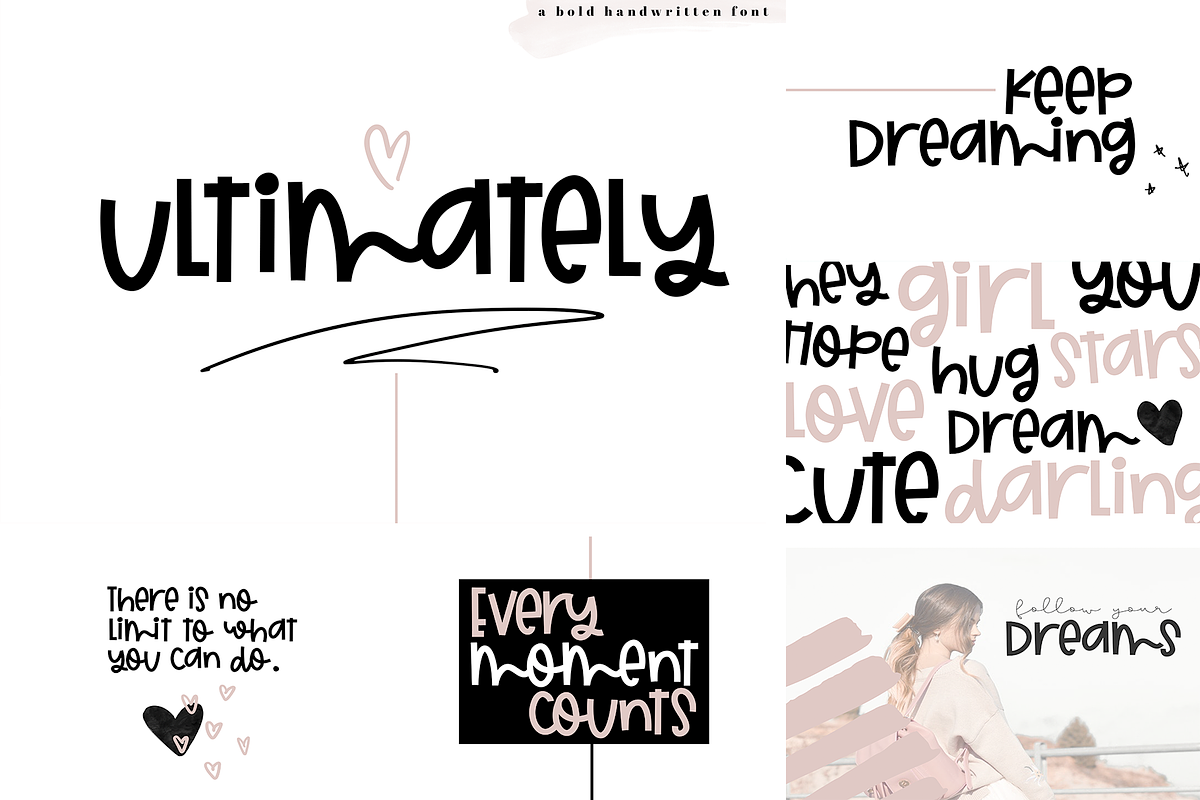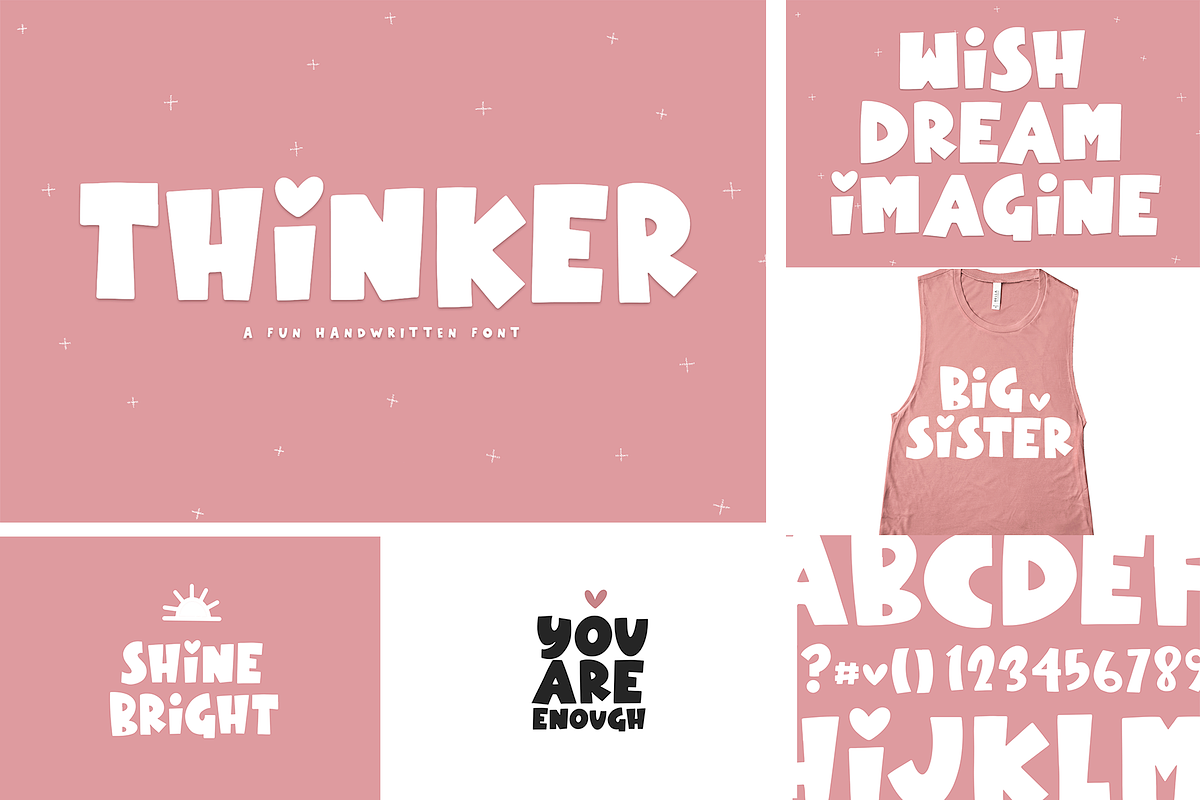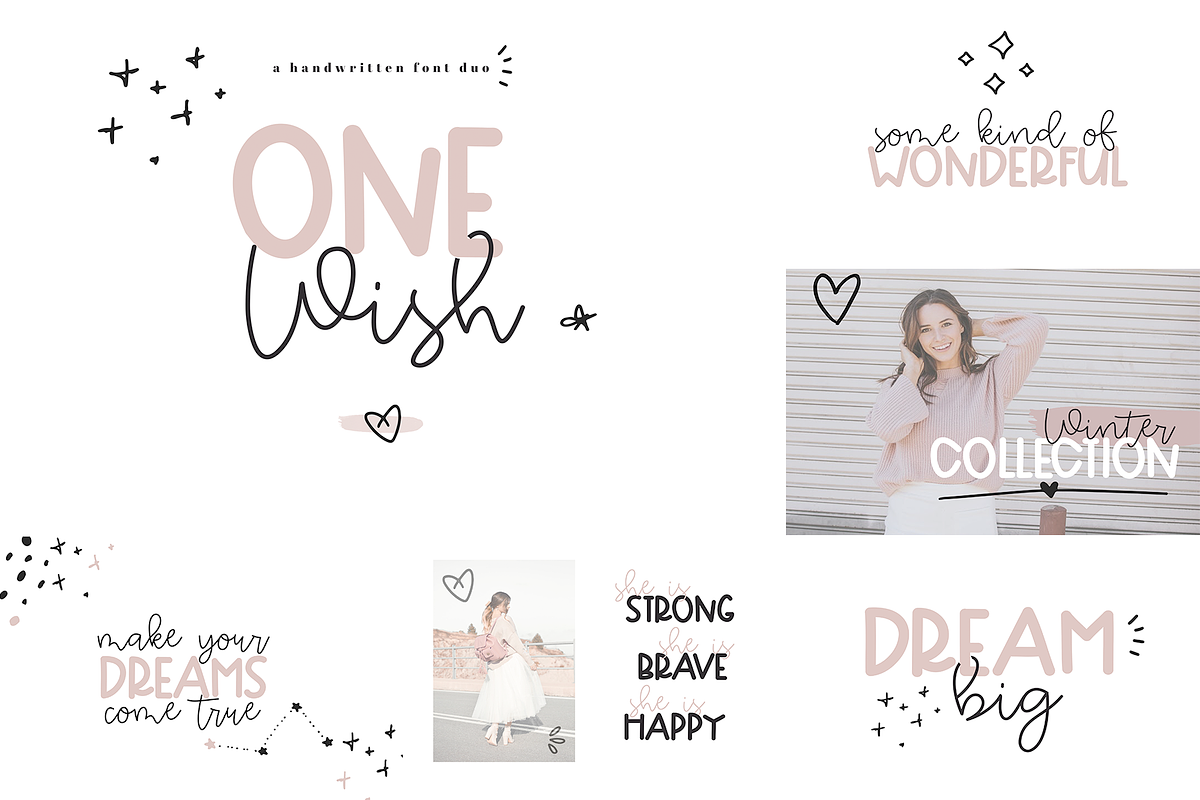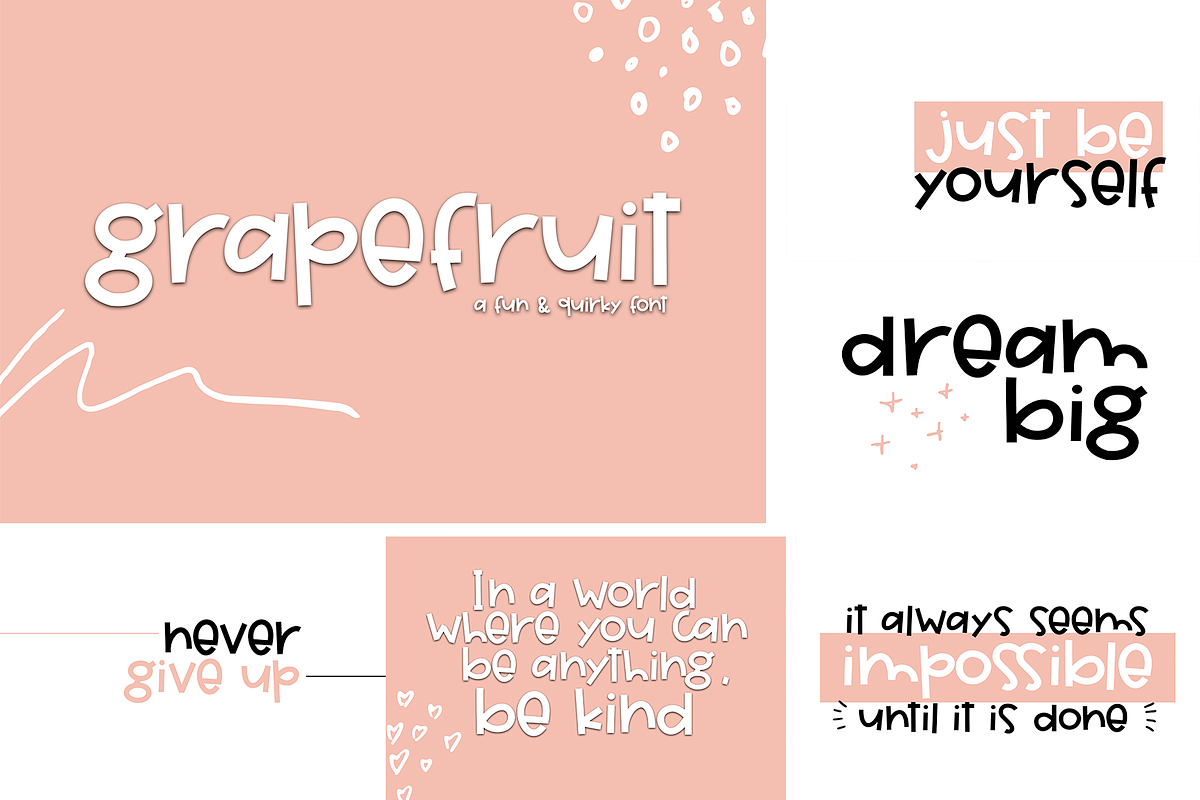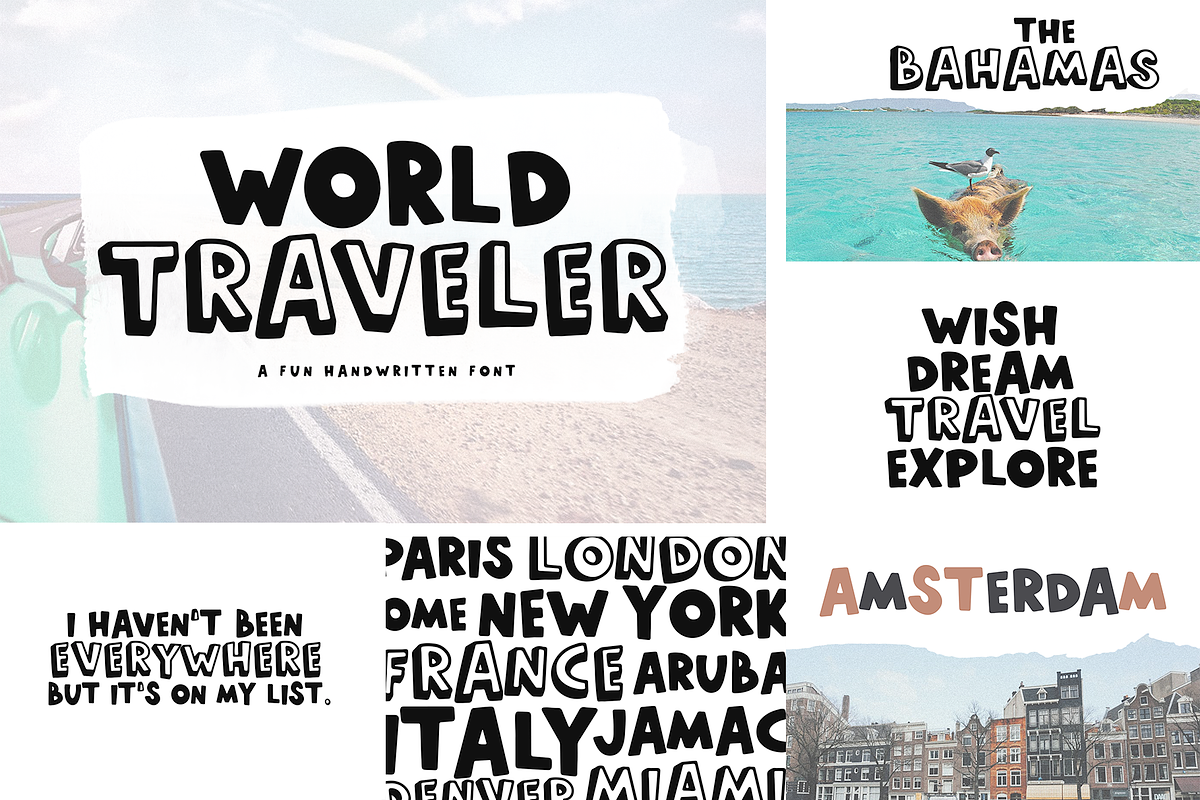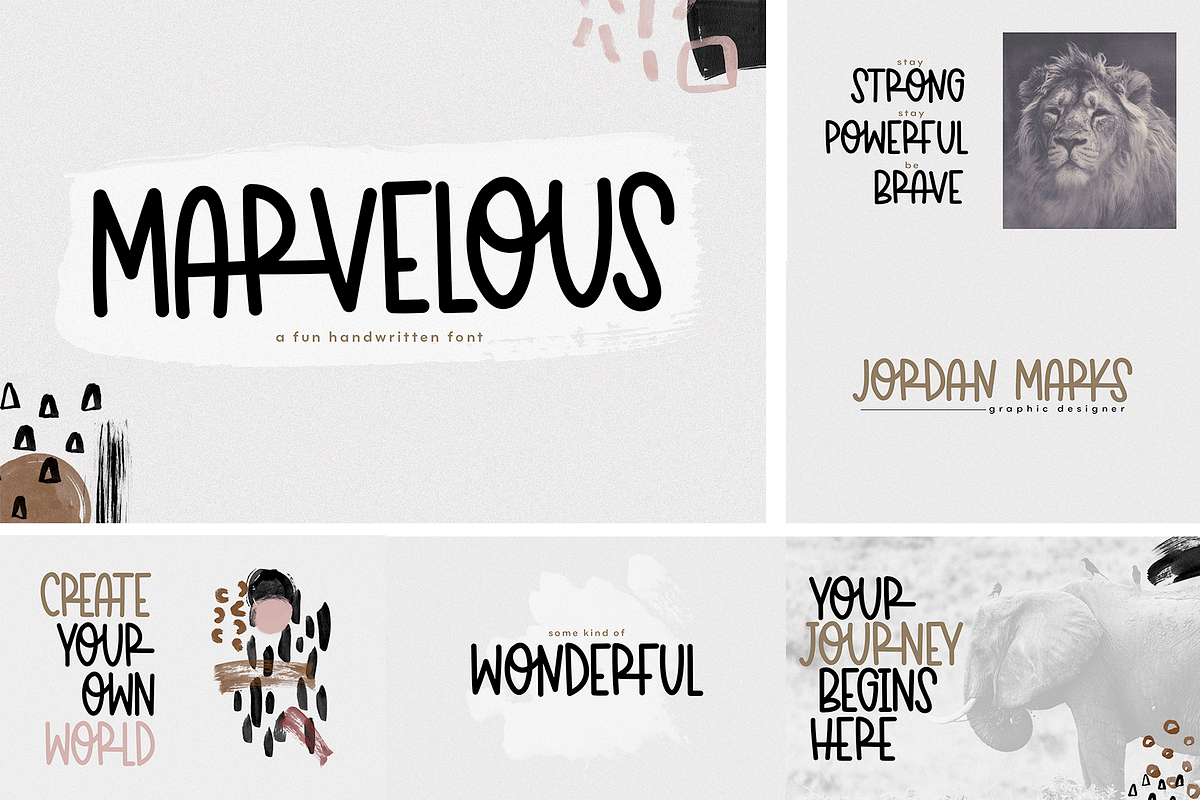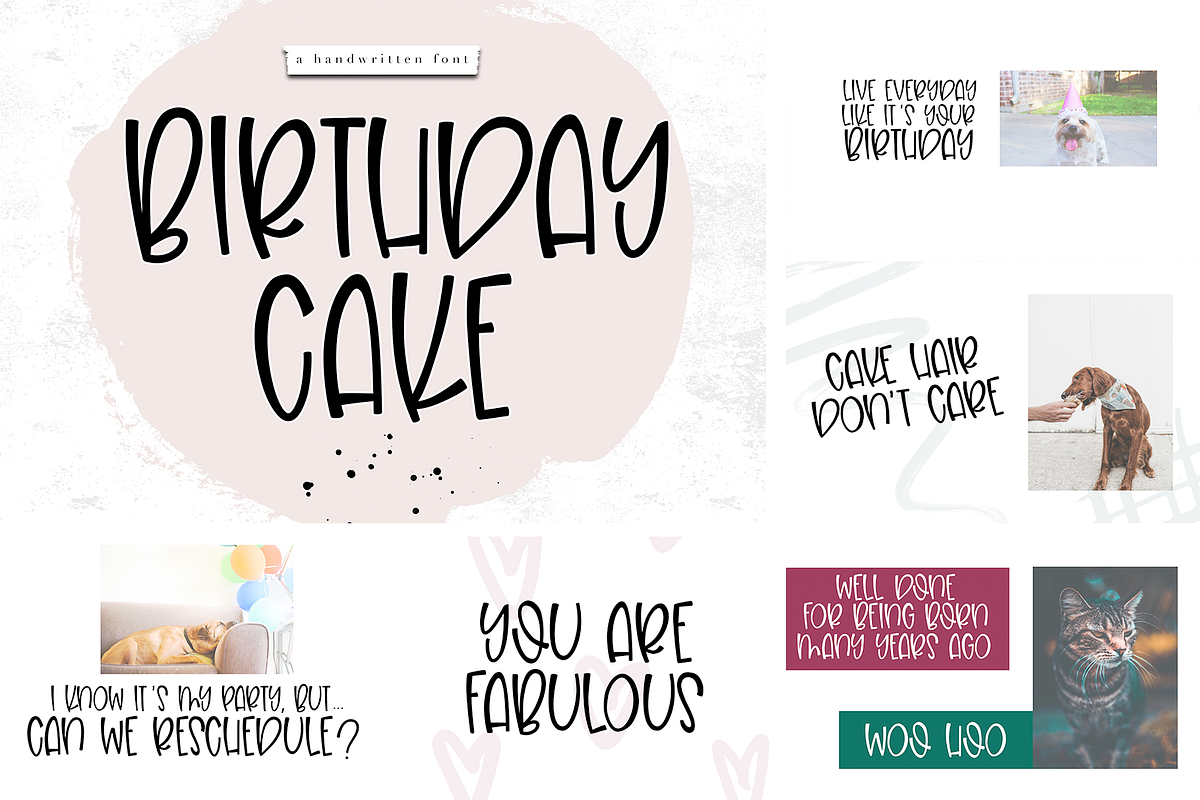
The Crafty Bundle - 14 Fonts
This bundle is perfect for crafters, svg/shirt makers, and more!
Bonus - Doodles font!
Use the fonts for: logos, branding, wedding invitations, business cards, greeting cards, posters, svg designs, mugs, t-shirts, magazines, social media, planner prints and websites.
- This bundle includes my handpicked selection of fonts, perfect for crafters!
- Includes Birthday Cake Birthday Party World Traveler Thinker Grapefruit Pink Pink Polka Marvelous One Wish Print One Wish Script Cake Batter